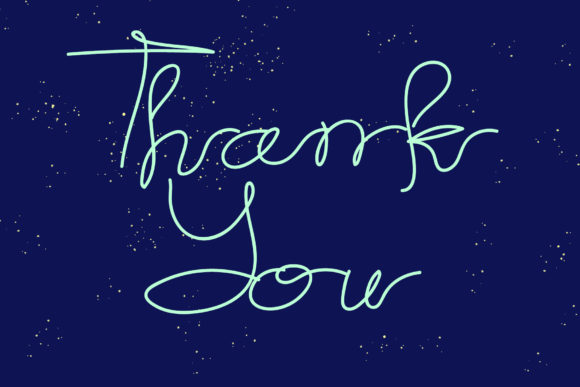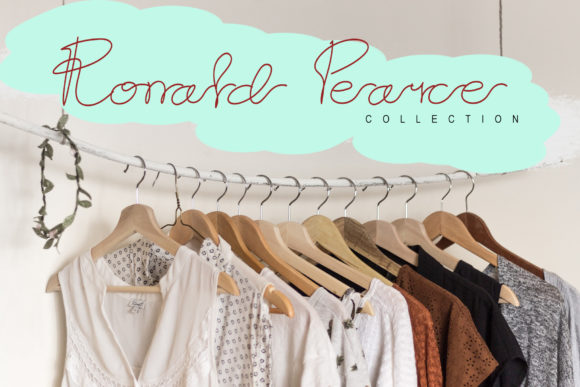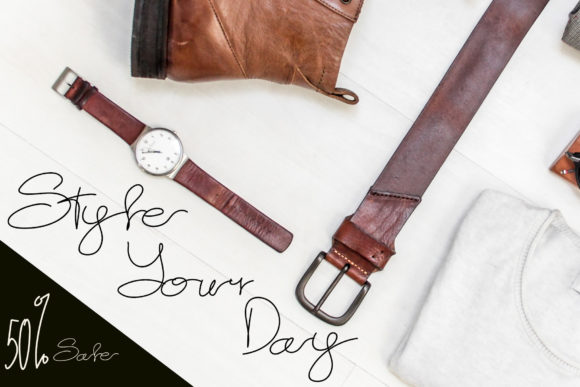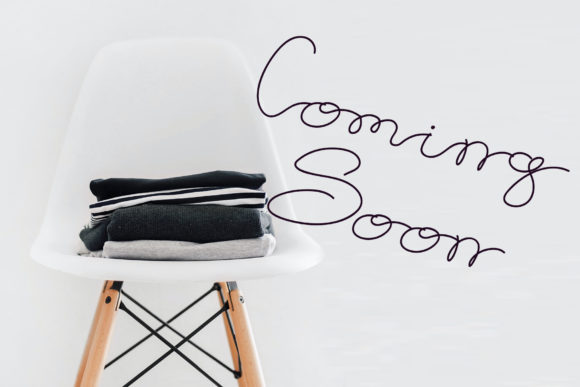
The Perfect Font to Sign Off Your Masterpiece
Have you ever spent hours crafting the perfect design, only to have it fall flat because of the font you chose for the final flourish? We’ve all been there – the thrill of creation, the agony of imperfection. But what if we told you that there’s a font out there that could take your designs from meh to magnificent? Enter the Bronze Signature Font, a stunning, thin, and cursive handwritten font that’s sure to elevate any creation.
This beautiful font is more than just a pretty face – it’s a versatile tool that can add a touch of sophistication and elegance to any project, from wedding invitations to business cards. Whether you’re a seasoned designer or just starting out, the Bronze Signature Font is a valuable asset to have in your toolkit. Its unique blend of style and substance makes it a must-have for anyone looking to take their designs to the next level.
Bronze Signature Font Key Features
- Font Family: Bronze Signature Font, a unique and elegant script font designed for signatures and handwritten text.
- Unique Characteristics: Features a distinctive, cursive design with subtle flair and elegance, making it perfect for creating a professional and personal touch in signatures, titles, and other handwritten text.
Designer Review: Bronze Signature Font
The Bronze Signature Font is a beautiful, elegant font that’s perfect for making a lasting impression. Here are some of its strengths:
- ✨ Elegant and sophisticated design: The Bronze Signature Font has a classic, timeless feel to it that’s hard to resist.
- ✨ Versatile: This font is suitable for a wide range of applications, from business cards to wedding invitations, and even packaging design.
- ✨ High-quality: The font is crisp and clear, making it perfect for both digital and print use.
- ⚠️ Limited language support: The Bronze Signature Font may not have the full range of language support that some designers require.
- ⚠️ Limited customization options: While the font is elegant, it may not be suitable for designers who need a high degree of customization.
- ⚠️ May not be suitable for small text: Due to its elegant design, the font may not be suitable for small text sizes.
Overall, I think the Bronze Signature Font is a great choice for designers who need a sophisticated and elegant font. While it may have some limitations, its strengths make it a worthwhile investment for any design project.
The Bronze Signature Font is commonly used for:
Personal branding and logos
Business cards and stationery
Wedding invitations and decor
Any design project where a unique, elegant font is desired.